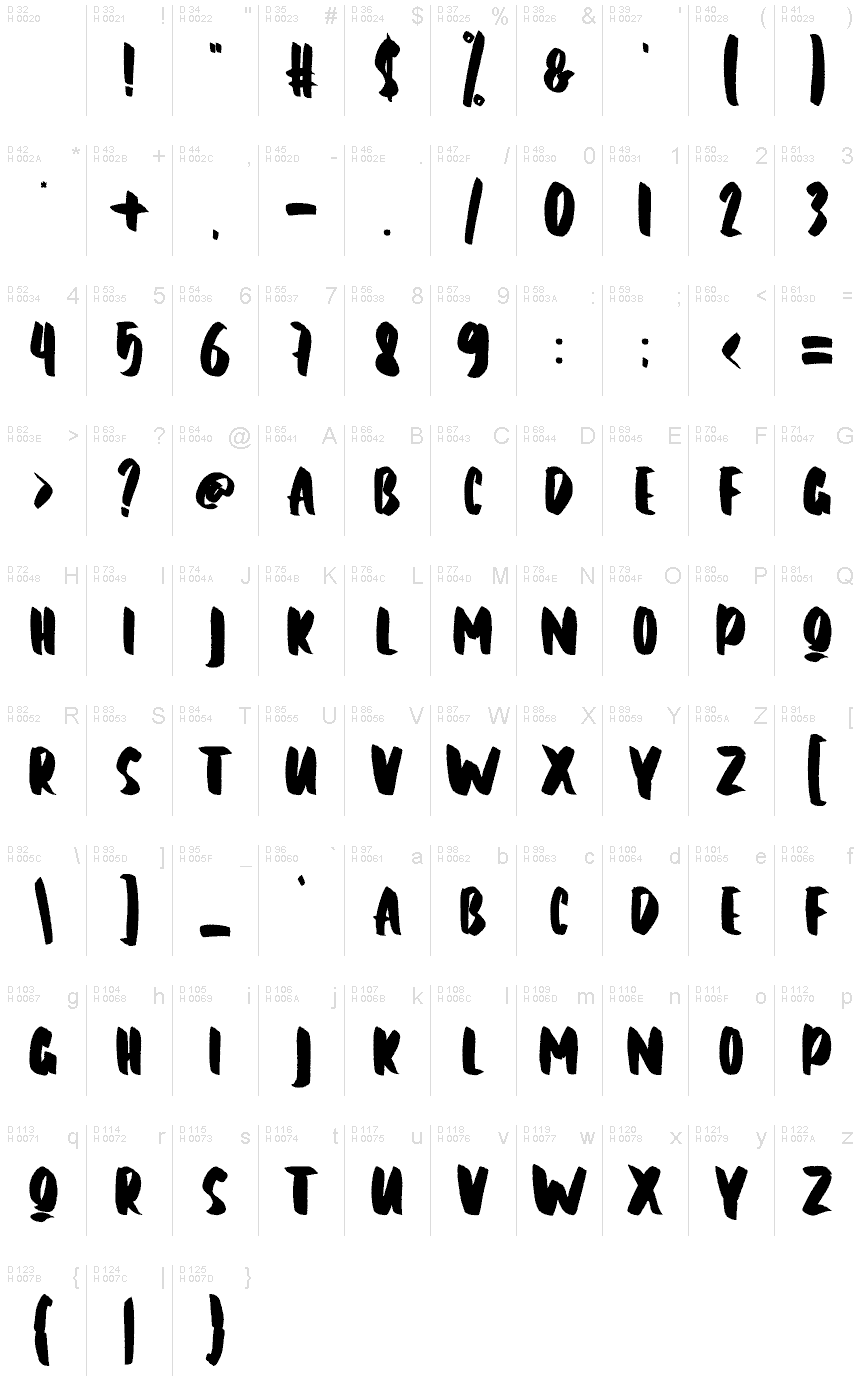
Balade
Balade font by Skiiller Studio is a bold condensed brush font with an otherwordly vibe and supreme expressiveness. Inspiring admiration at first glance, it gives off a fresh and artistic feel to those who need something for a striking display. It holds in its structure certain organic features with wide automatic curves, artificial-looking roughness, and unusual crosshatching. Artistic flair is overflowing with the extravagantly designed letter strokes that are unique to say the least.
This free handwritten font can do wonders for advertisements, product labels, book covers or titles (especially sci-fi). It fits technology-related designs like websites and apps as well as logos of pretty much any industry or niche. Other use cases include posters of all types, magazine headings, quotes on merchandise (t-shirts or mugs), social media banners or ads for food chains.